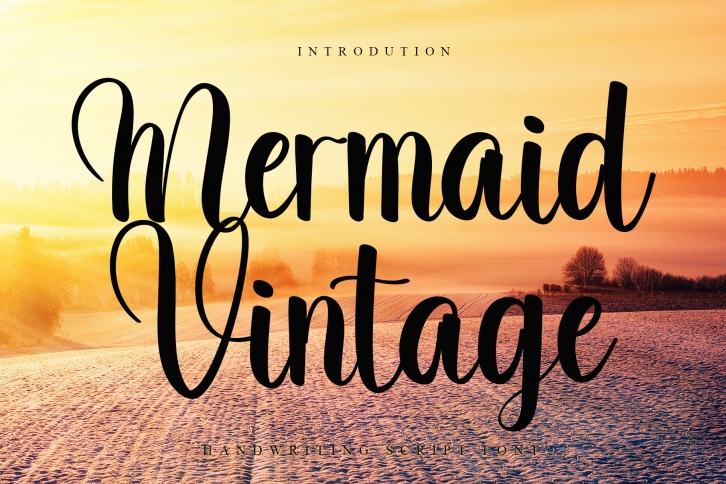
Mermaid Vintage is a classy and timeless handwritten font. It is the best choice for creating eye catching logos, branding and quotes. Every letter has a unique and beautiful touch, which will make your design come alive!